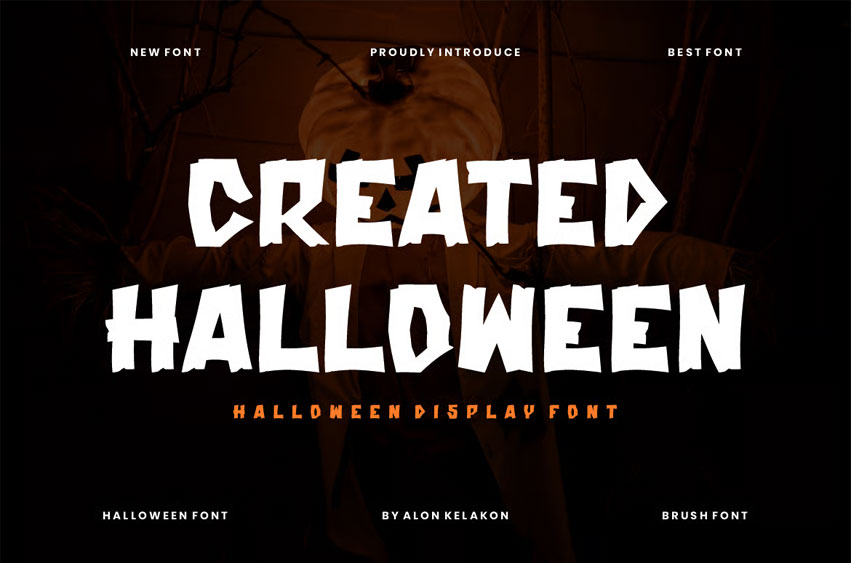
Created Halloween Font
Created Halloween Font is unique.
Ready to use for your design like labeling, movie sceen, poster, movie title, gigs, album covers, logos, and much more.